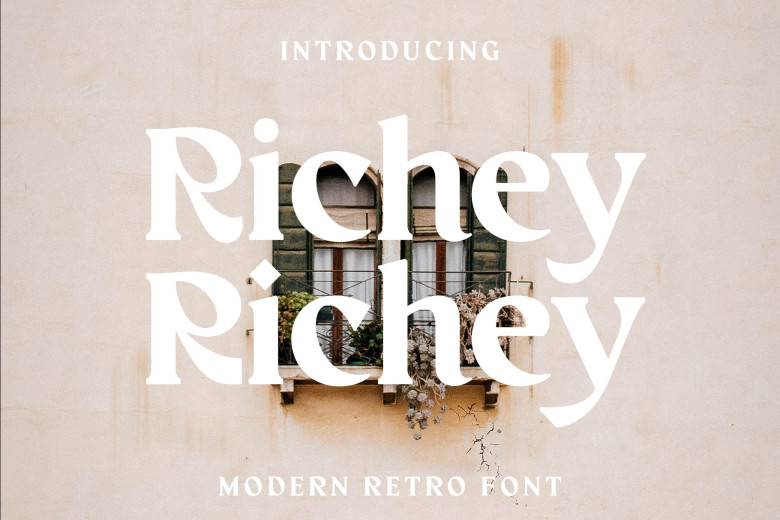
RIchey Font
On this special occasion we would like to introduce “Richey“, our latest item. Reviving classic and vintage styles with its retro serif font, Richey will help make you appear timeless and unique. Its clean and minimalist appearance can easily be applied to designs like magazine covers, book covers, invitations, social media posts and more!
RIchey Retro Serif Font